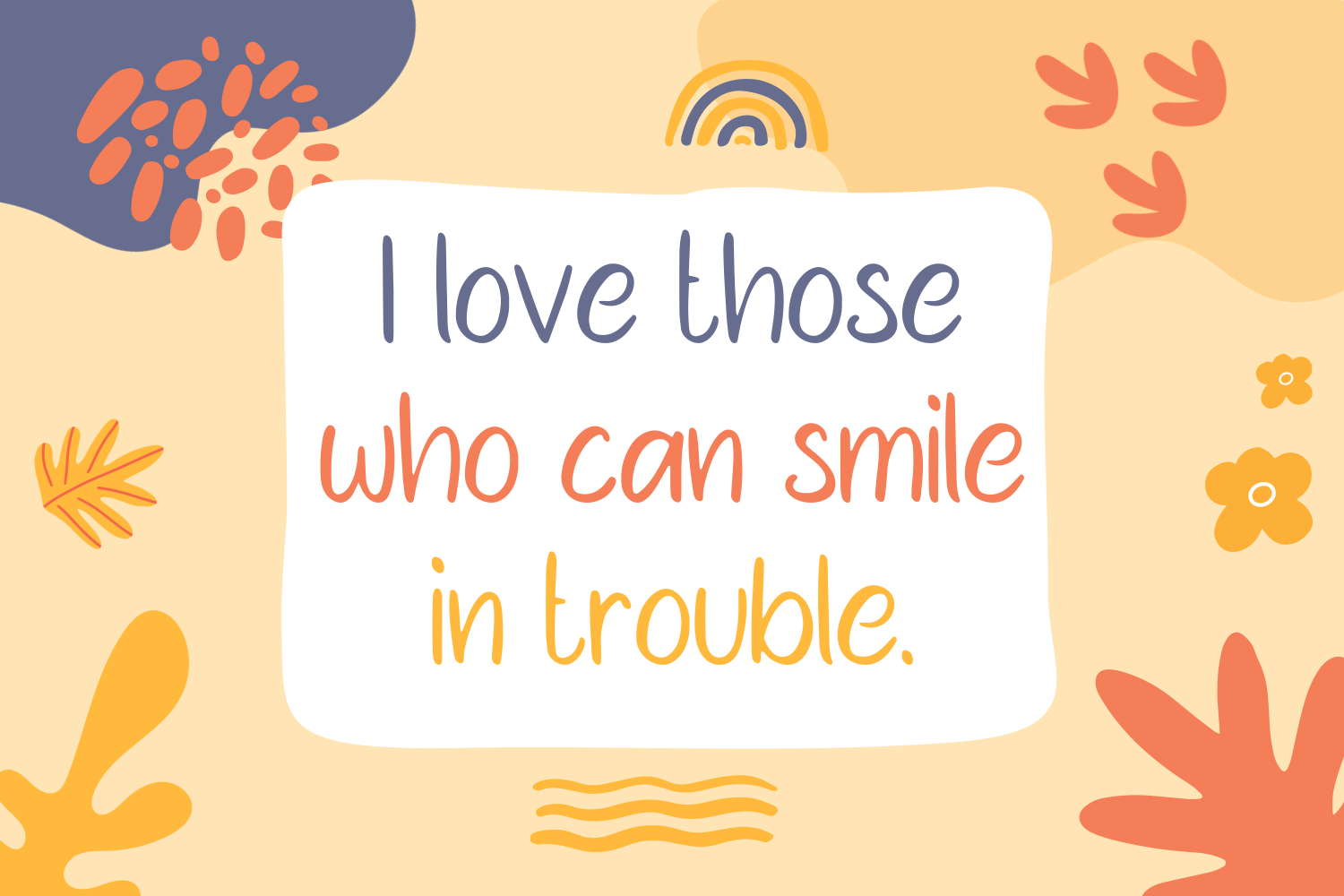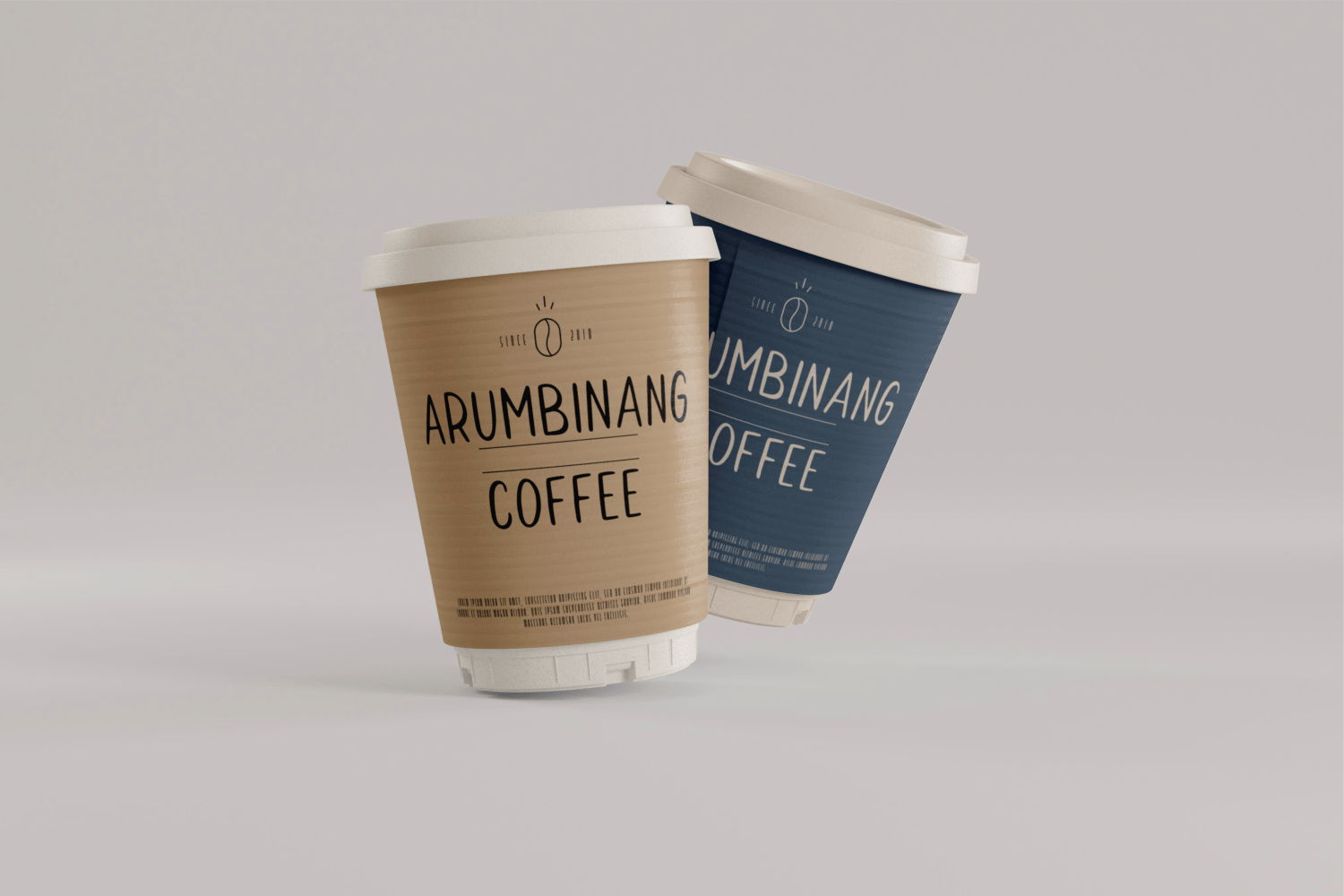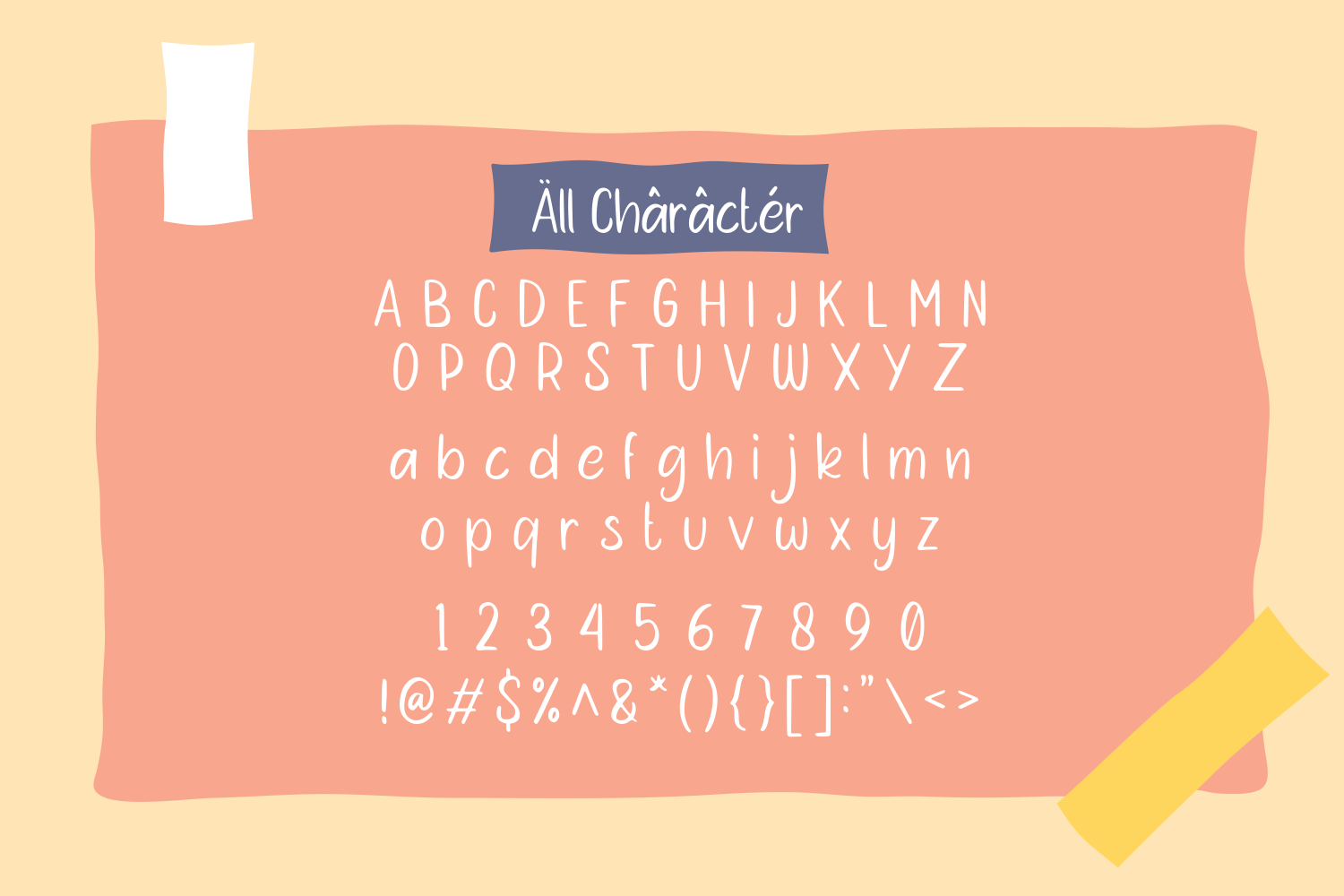
Mambu Langu Font
Mambu Langu Display Font is a clean, simple and adaptable handwritten font. It can easily be matched to an incredibly large set of projects, so add it to your creative ideas and notice how it makes them stand out!